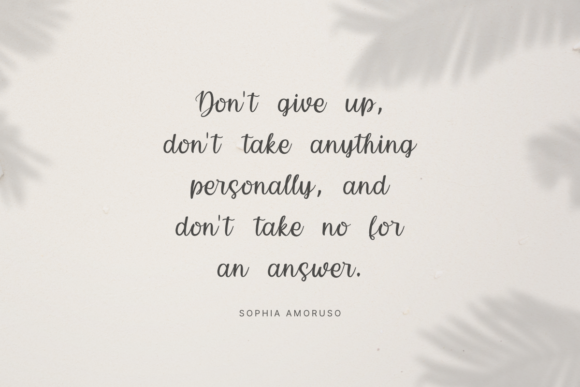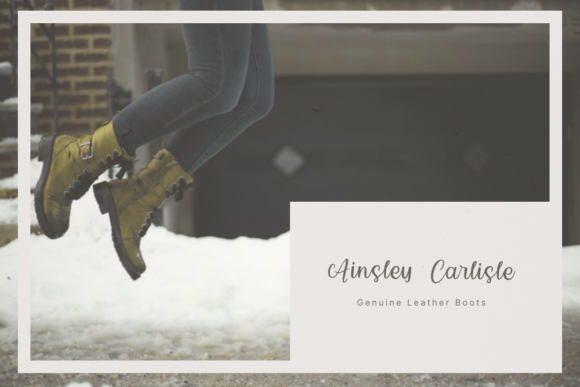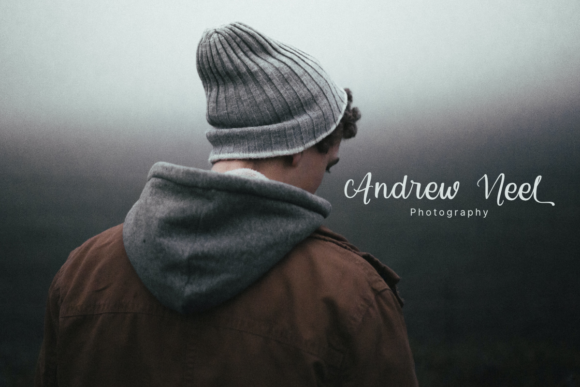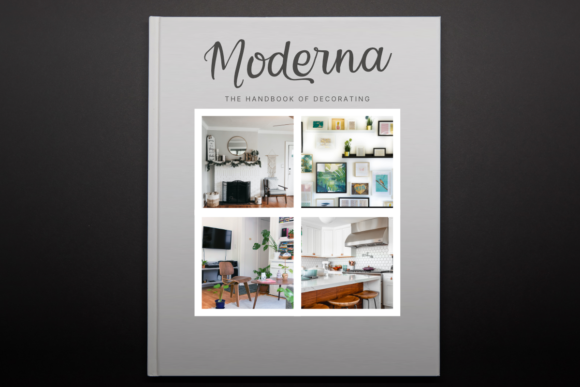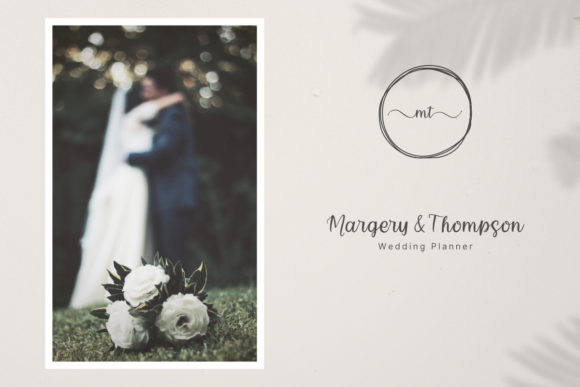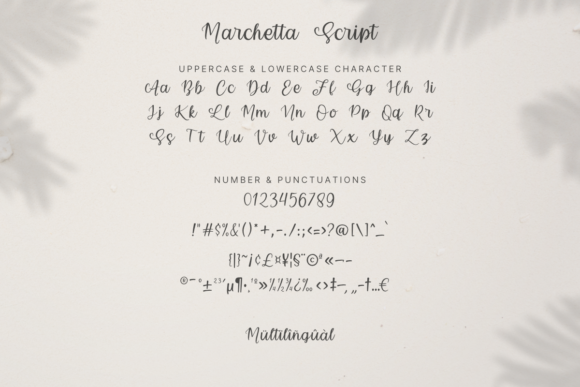
Introduction to Marchetta Script Font
Do you remember that moment when you’re working on a creative project and you’re searching for the perfect font to convey your emotions? For many designers, this moment is like finding a needle in a haystack – until now. The Marchetta Script Font is here to save the day, offering a unique blend of charm and elegance that will elevate any design to the next level.
This beautiful font is a game-changer for designers who want to add a handwritten touch to their work. Whether you’re creating wedding invitations, thank you cards, or quotes, Marchetta Script Font is the perfect design resource that will make your projects stand out. With its high-quality features, including smooth lines, gorgeous glyphs, and stunning alternates, this font is a must-have for any designer looking to add a personal touch to their work.
Key Features of Marchetta Script Font
- Marchetta Script Font features a beautiful, elegant script style with a transparent background, perfect for adding a touch of sophistication to your designs.
- Includes a wide range of characters, including uppercase and lowercase letters, numbers, and punctuation marks, making it a versatile design resource.
- Designed to be highly legible and readable, even at small font sizes, making it perfect for use in a variety of creative projects, from invitations to signage.
Honest Review: Marchetta Script Font
I recently had the chance to work with the Marchetta Script Font, and I must say it’s been a game-changer for my creative projects. The font is a high-quality design resource that can elevate any text-based element in your designs.
Here are some of the things that work well with the Marchetta Script Font:
- ✨ Beautiful, elegant script style that’s perfect for invitations, wedding designs, and other creative projects
- ✨ High-quality font that’s clear and easy to read, even at smaller font sizes
- ✨ Comes with a transparent background, making it easy to use in any design
- ⚠️ Limited font weights and styles – if you need a wide range of options, you may need to look elsewhere
Overall, I’m really impressed with the Marchetta Script Font. It’s a high-quality design resource that’s perfect for any creative project. If you’re looking for a beautiful, elegant script font, I highly recommend giving it a try.
How to Use Marchetta Script Font
Tips for Getting the Most Out of Marchetta Script Font
To get the most out of the Marchetta Script Font, experiment with different font sizes, colors, and combinations. Use it in conjunction with other design elements, such as images or shapes, to create a unique and eye-catching design. Don’t be afraid to try new things and push the boundaries of what’s possible with this high-quality font.
Common Use Cases for Marchetta Script Font
The Marchetta Script Font is perfect for various design projects, including invitations, social media posts, flyers, brochures, logos, business cards, and presentations. Its versatility and high-quality design make it an excellent addition to any design library.